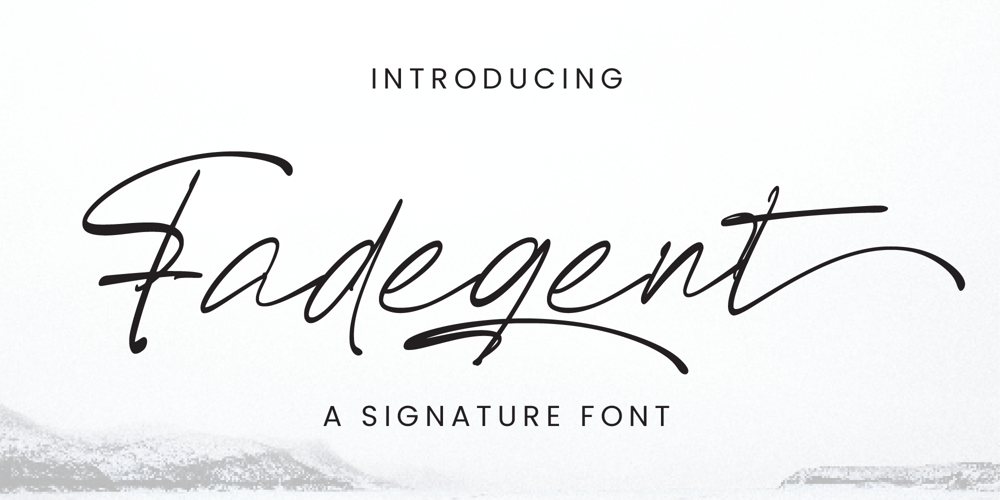
Fadegent Font Family was designed by Randi Irvan and published by Rvandtype. Fadegent contains 1 styles and family package options. Discover the Allure of Fadegent Font: A Signature of EleganceStep into a world of refined design with Fadegent Font, an embodiment of timeless elegance. Crafted with meticulous attention to detail, this signature-style font is a work of art in itself, with its graceful strokes and sophisticated curves that infuse every character with a touch of opulence.Features: Alternate Characters Numbers and punctuation Multilingual PUA encoded Thank You